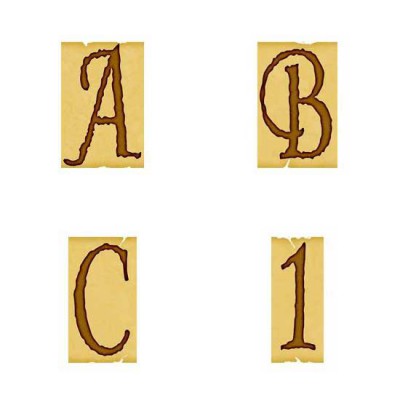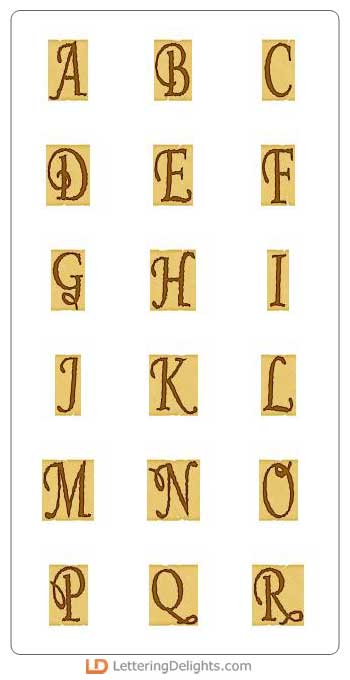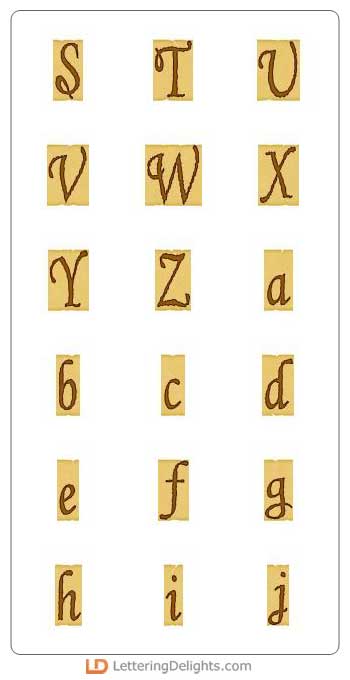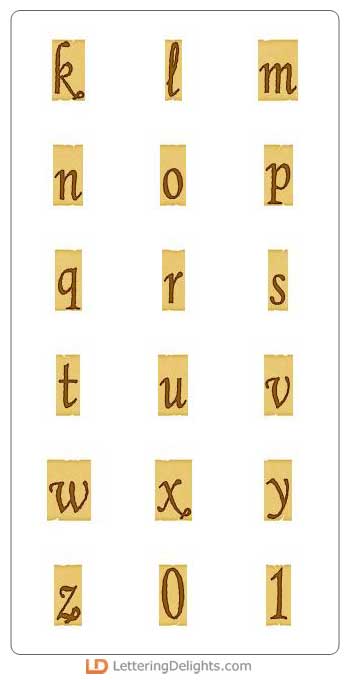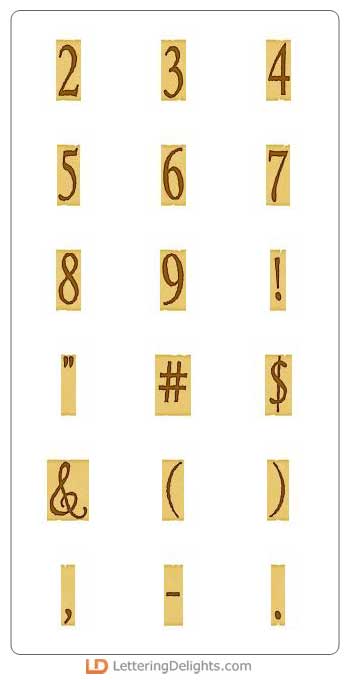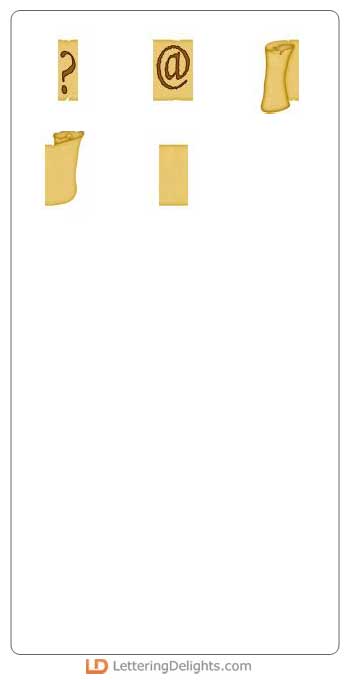
Hear ye, hear ye! This creative alphabet appears on an old fashioned scroll, complete with fancy letters and curled parchment paper ends. Perfect for invitations or special announcements.